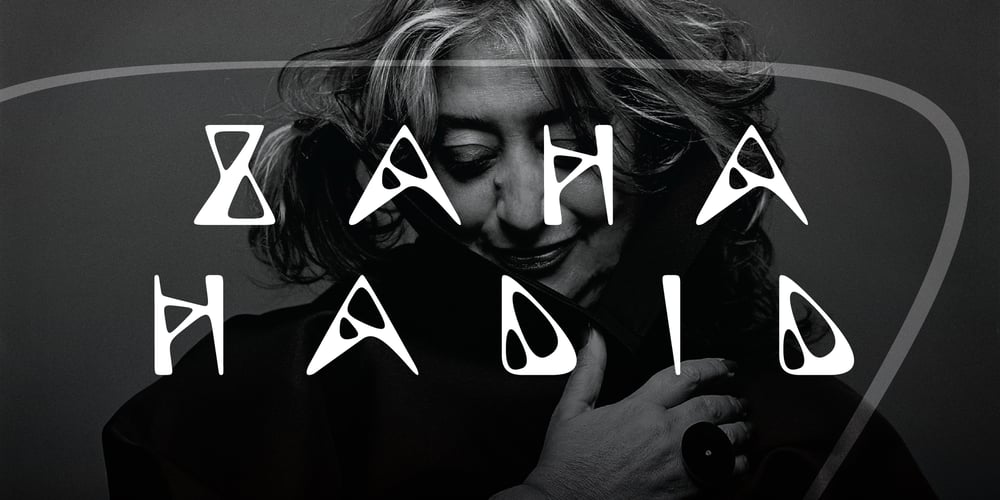
Hadid Font Family was designed by Özhan Yurtseven and published by Özhan Yurtseven. Hadid contains 1 styles and family package options. For the font design project, I had decided to make a typeface which would reflect the style architectural of Zaha Hadid. My purpose was the presentation of a font to her as Zaha Hadid was alive during my project process. But nearly at the end of the project we unfortunately received the death news of her. Her life wasn’t long enough to see the project completed.